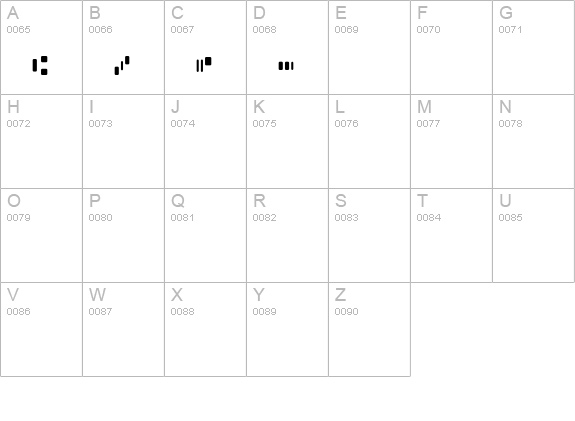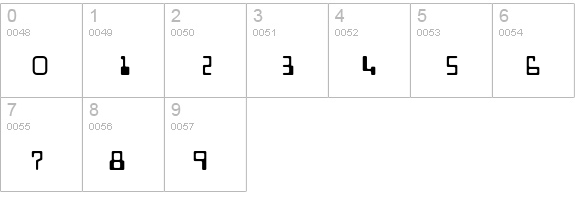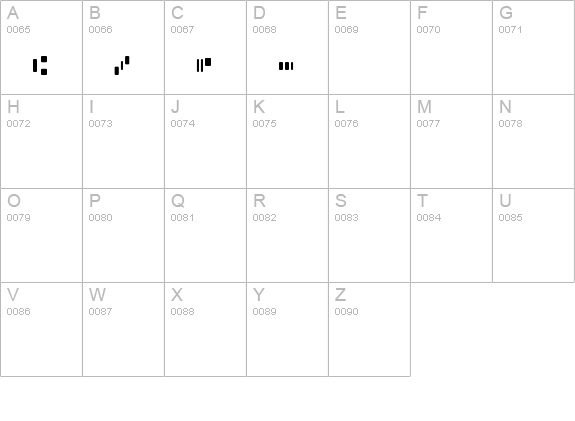
MICR 013 Font Details
The MICR 013 font is a sleek and modern typeface designed for optimal readability in financial documents and bank checks. Featuring clean lines and sharp edges, this font exudes professionalism and efficiency. Its precise design ensures accurate scanning and easy recognition by optical character recognition systems. What sets the MICR 013 font apart is that it is not only functional but also aesthetically pleasing, making it a versatile choice for various design projects. Its bold and distinct appearance commands attention while maintaining a sense of reliability and trustworthiness. Best of all, the MICR 013 font is available for free download at FontsMarket.com, making it easily accessible to designers, businesses, and individuals looking to enhance their projects with a high-quality typeface. Don't miss out on the opportunity to elevate your designs with this exceptional font that combines form and function seamlessly.